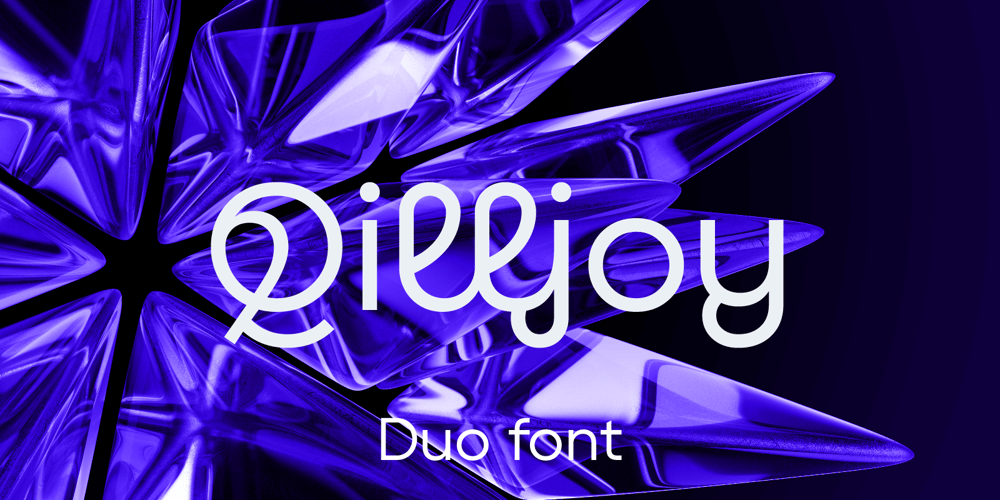
Qilljoy Font Family was designed by Slava Antipov and published by Slava Antipov. Qilljoy contains 4 styles and family package options. Qilljoy is a font pair consisting of a Normal and Special style. Qilljoy Normal is a strict geometric grotesque, it is versatile, readable, and suitable for large amounts of text. Qilljoy Special is an accidental style, some letters in it have a handwritten shape, and the connections of these letters give many different ligatures. Qilljoy font has a unique inimitable design that attracts attention and adds originality to the project.The font would work well for logos, headlines, posters, presentations, merchandise, social media and more.Qilljoy supports Latin and Cyrillic, has various OpenType features such as ligatures, alternate glyphs, fractional numbers and others.